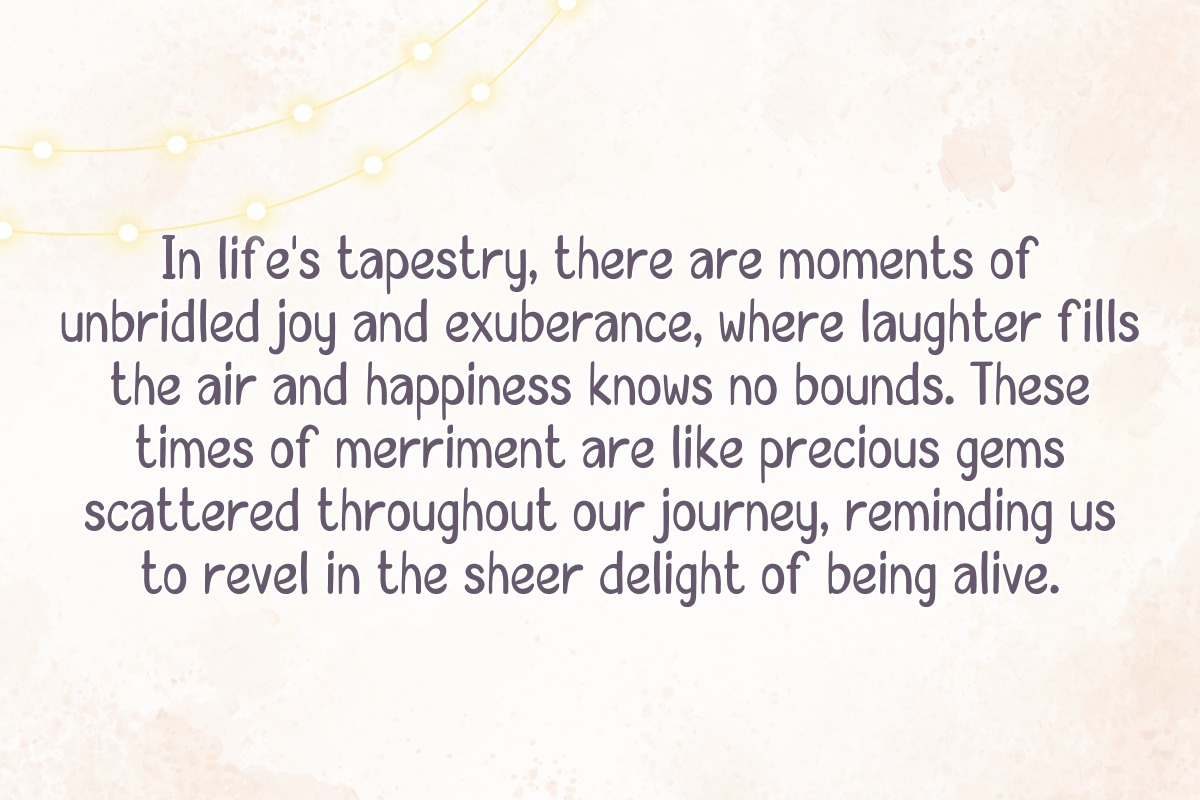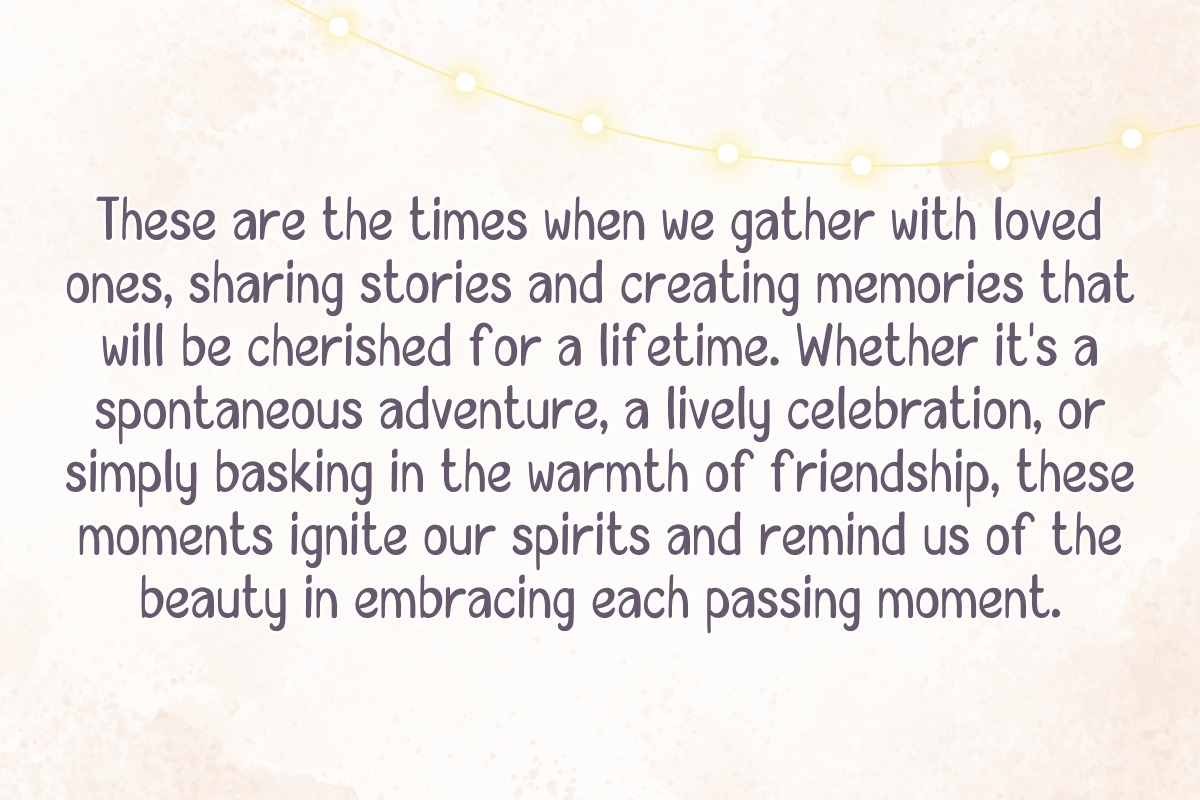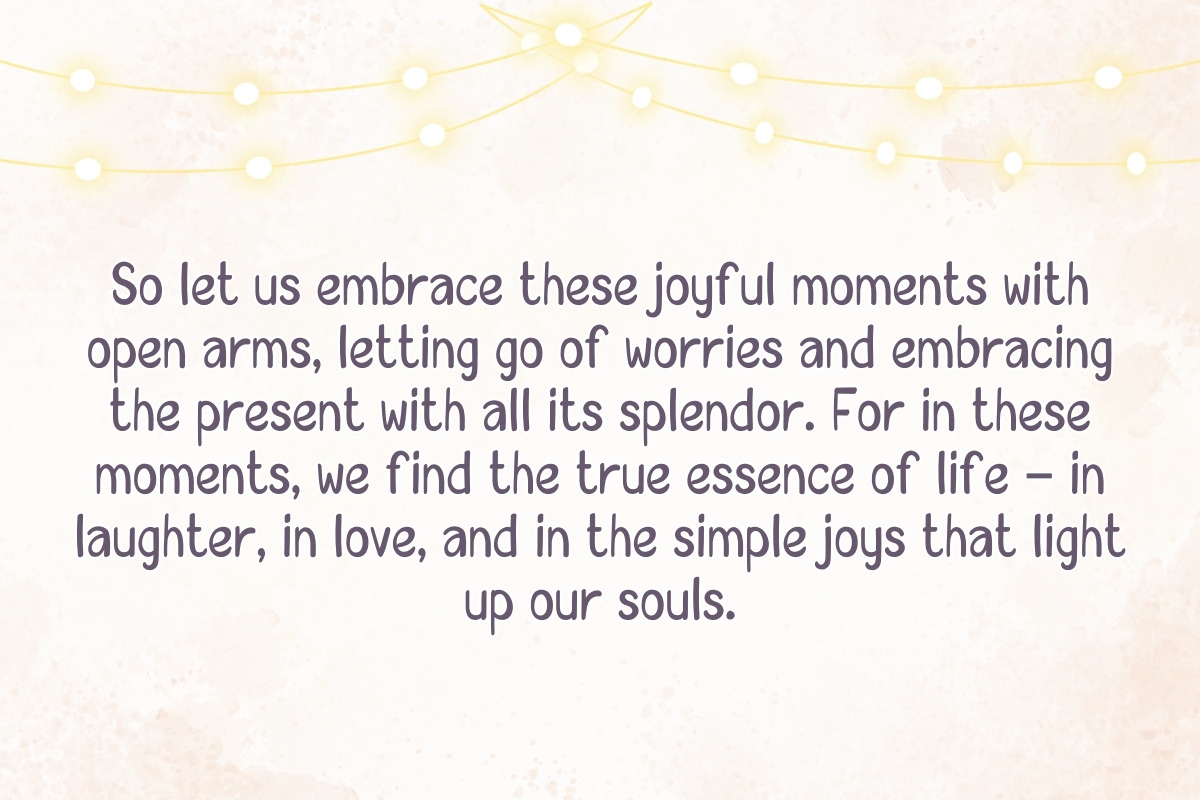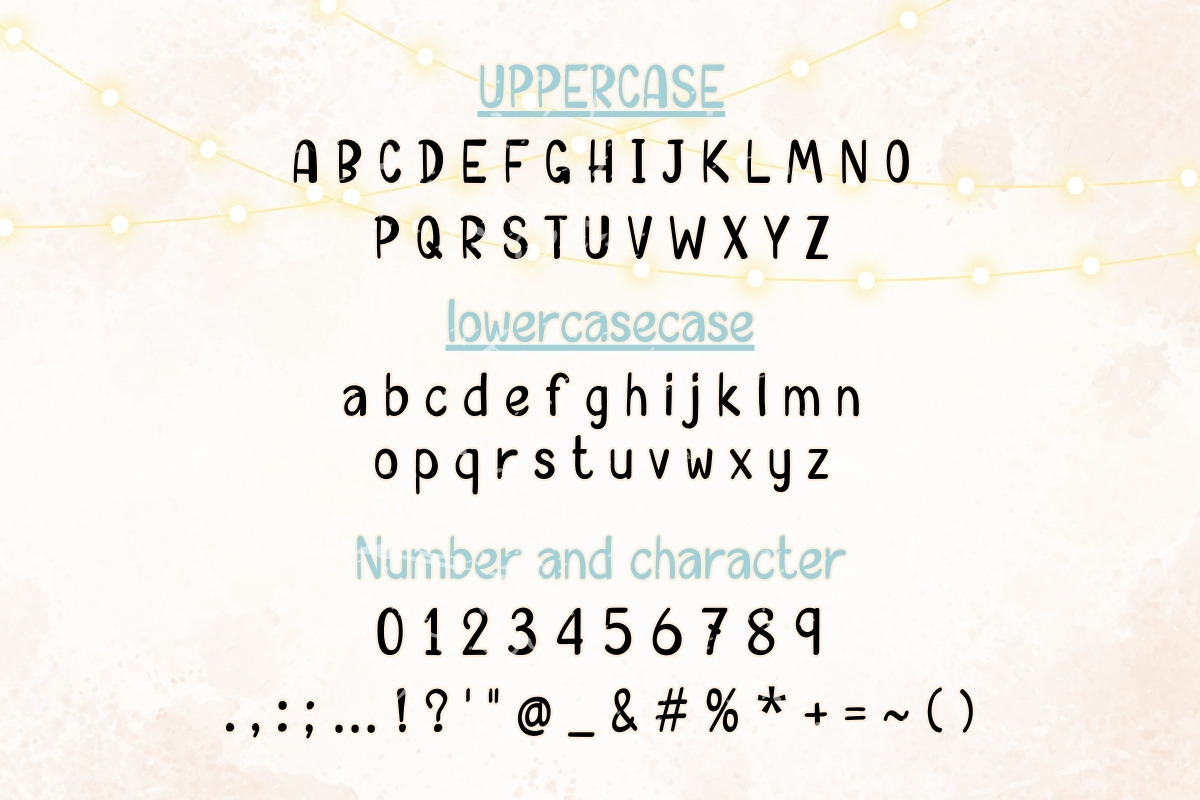
Cheery Moment - Handwriting
Introducing Cheery Moment - a delightful handwritten font that effortlessly adds charm and warmth to any project. With its playful yet elegant strokes, this font exudes a sense of whimsy and friendliness, making it perfect for conveying a range of emotions from joy to sincerity.